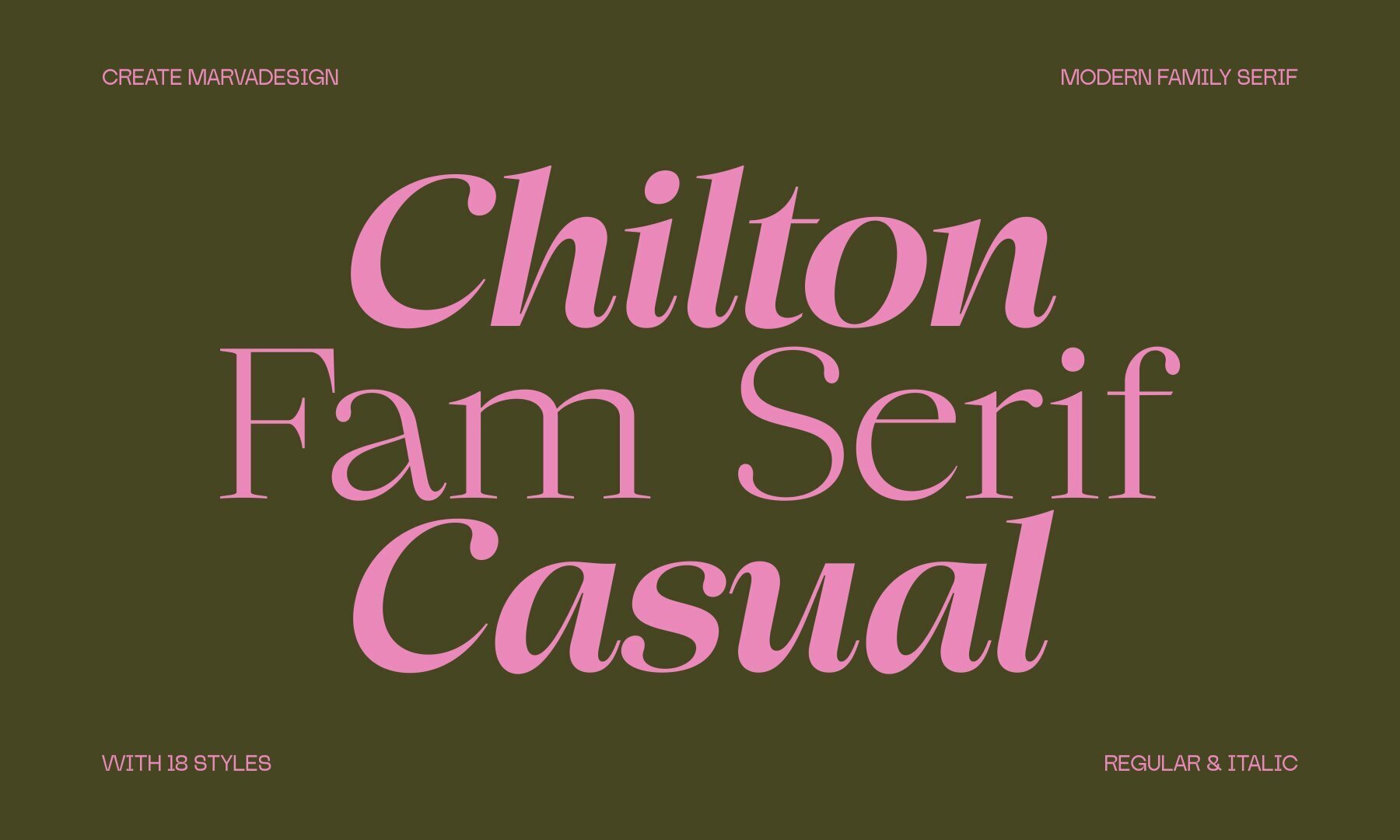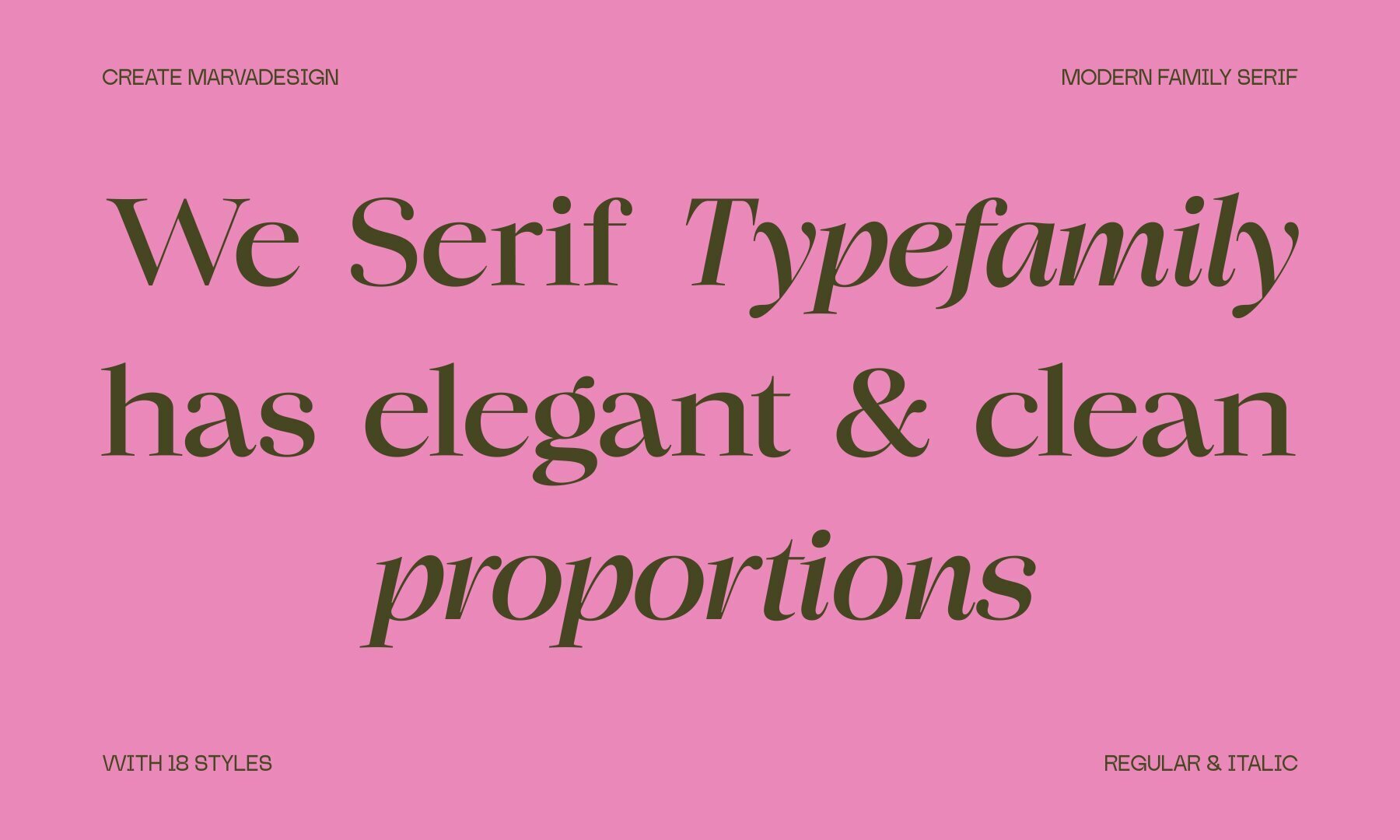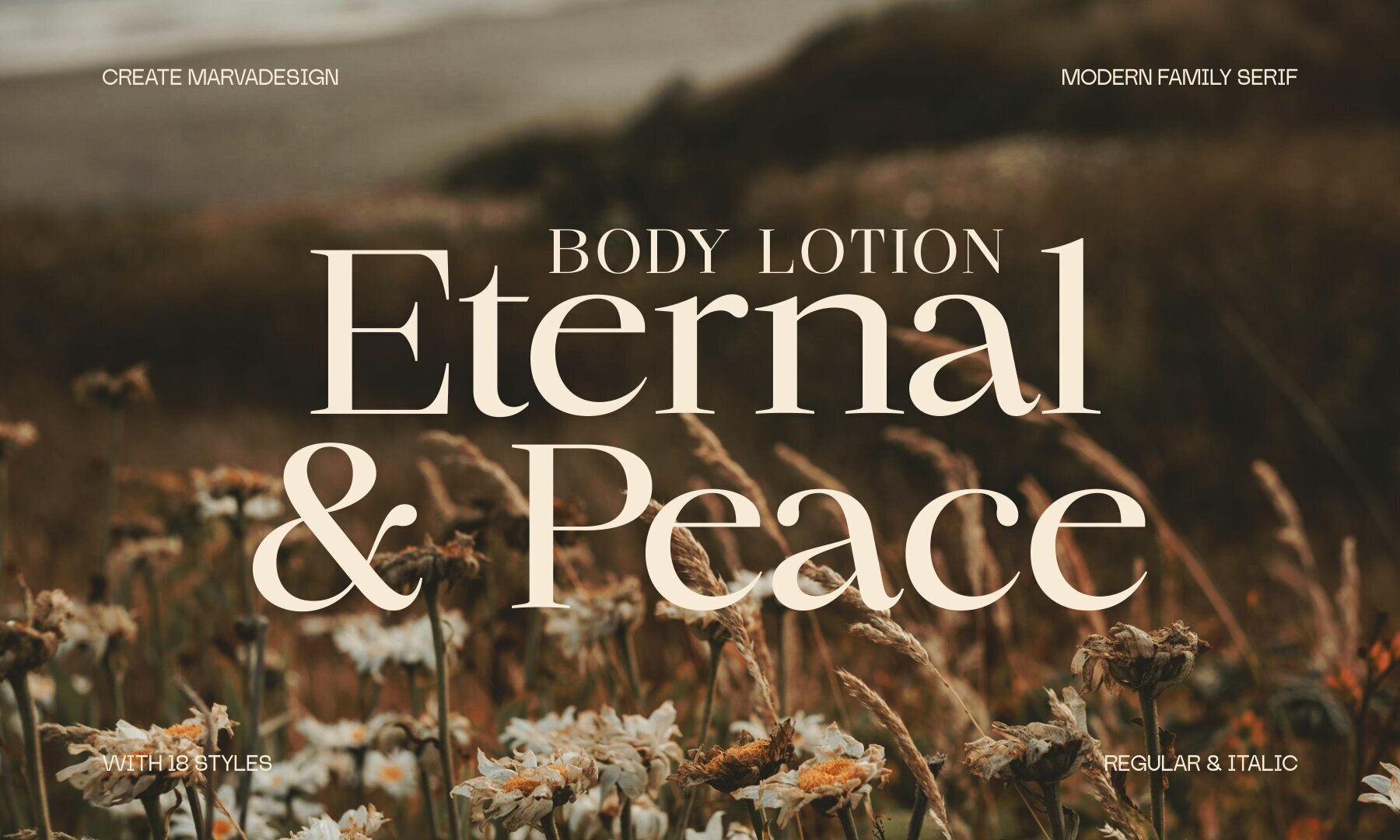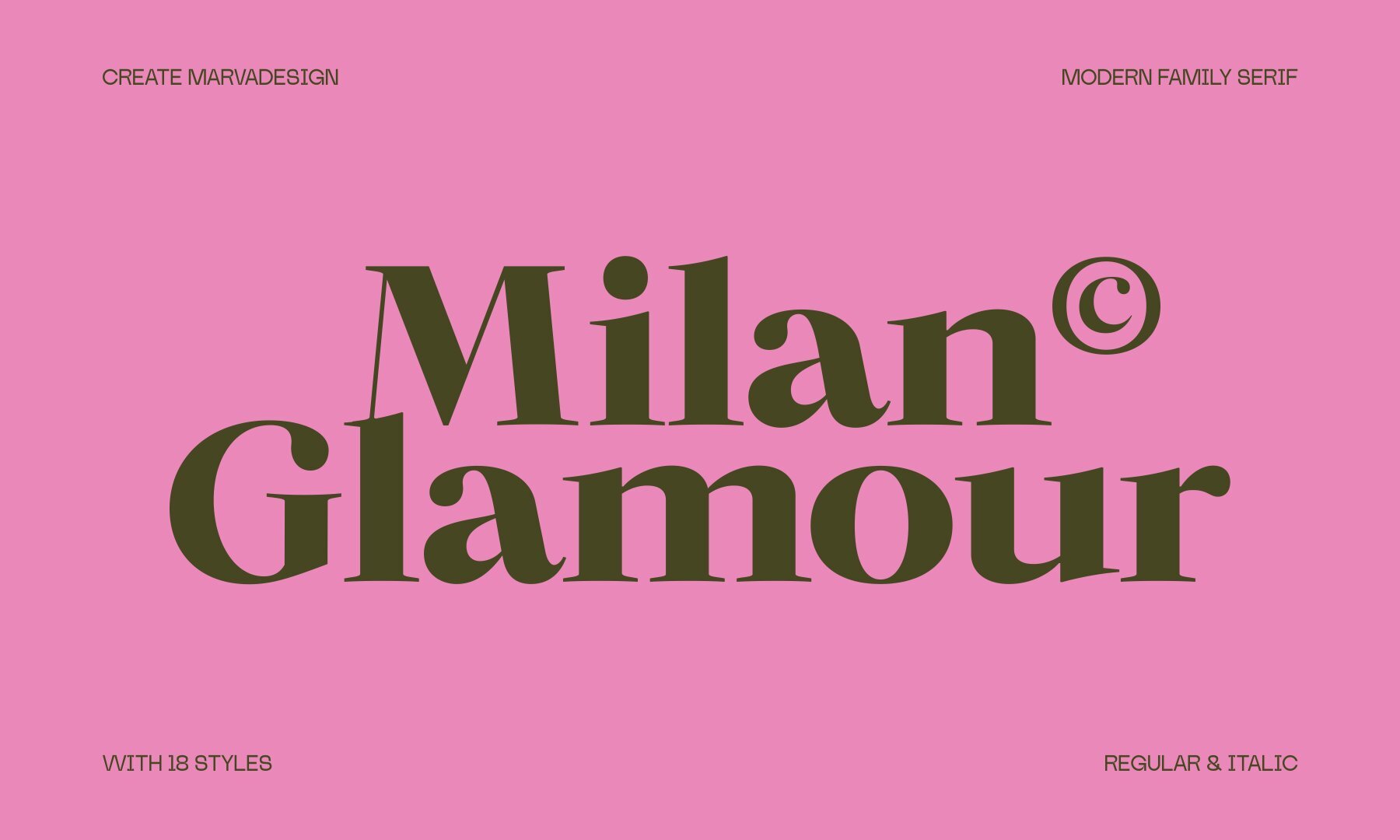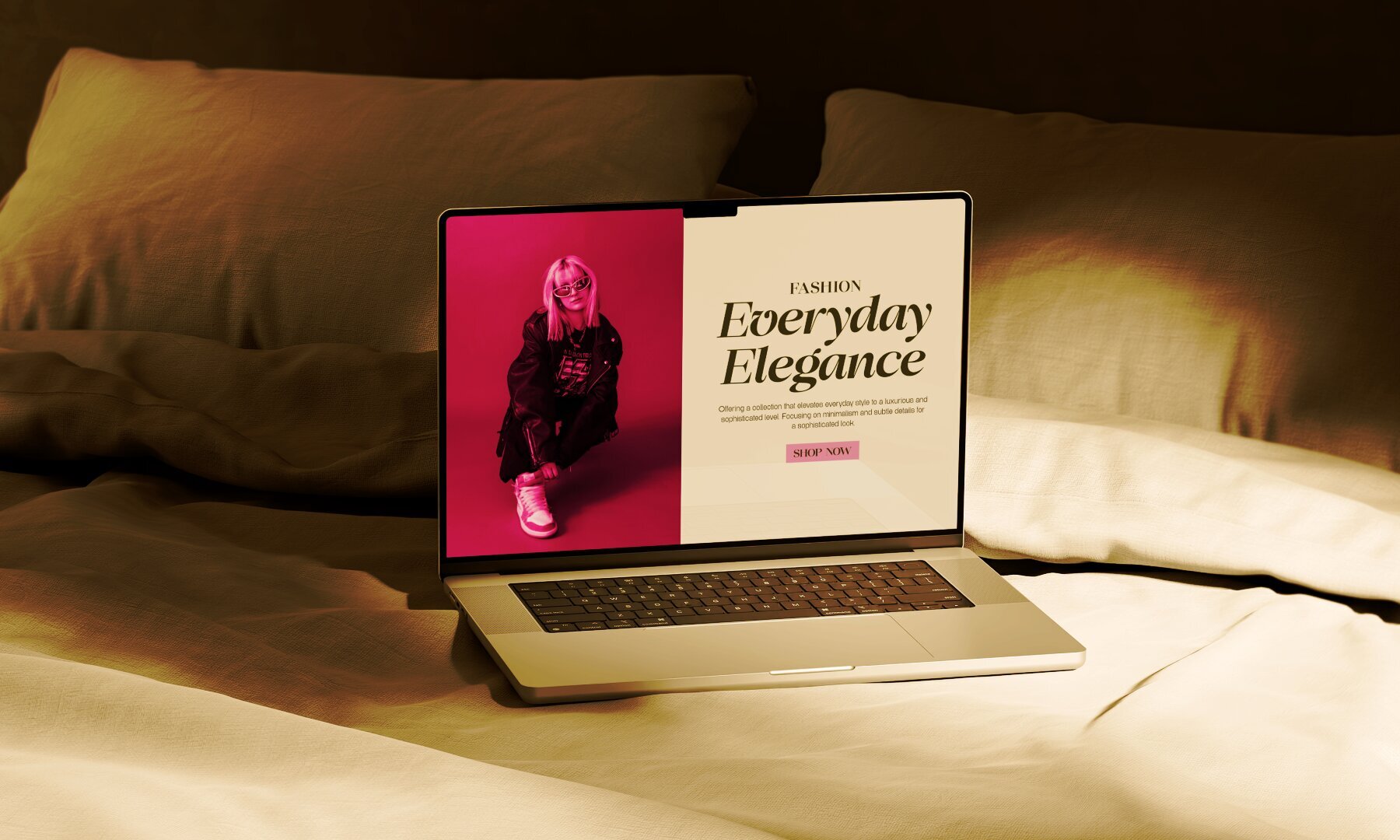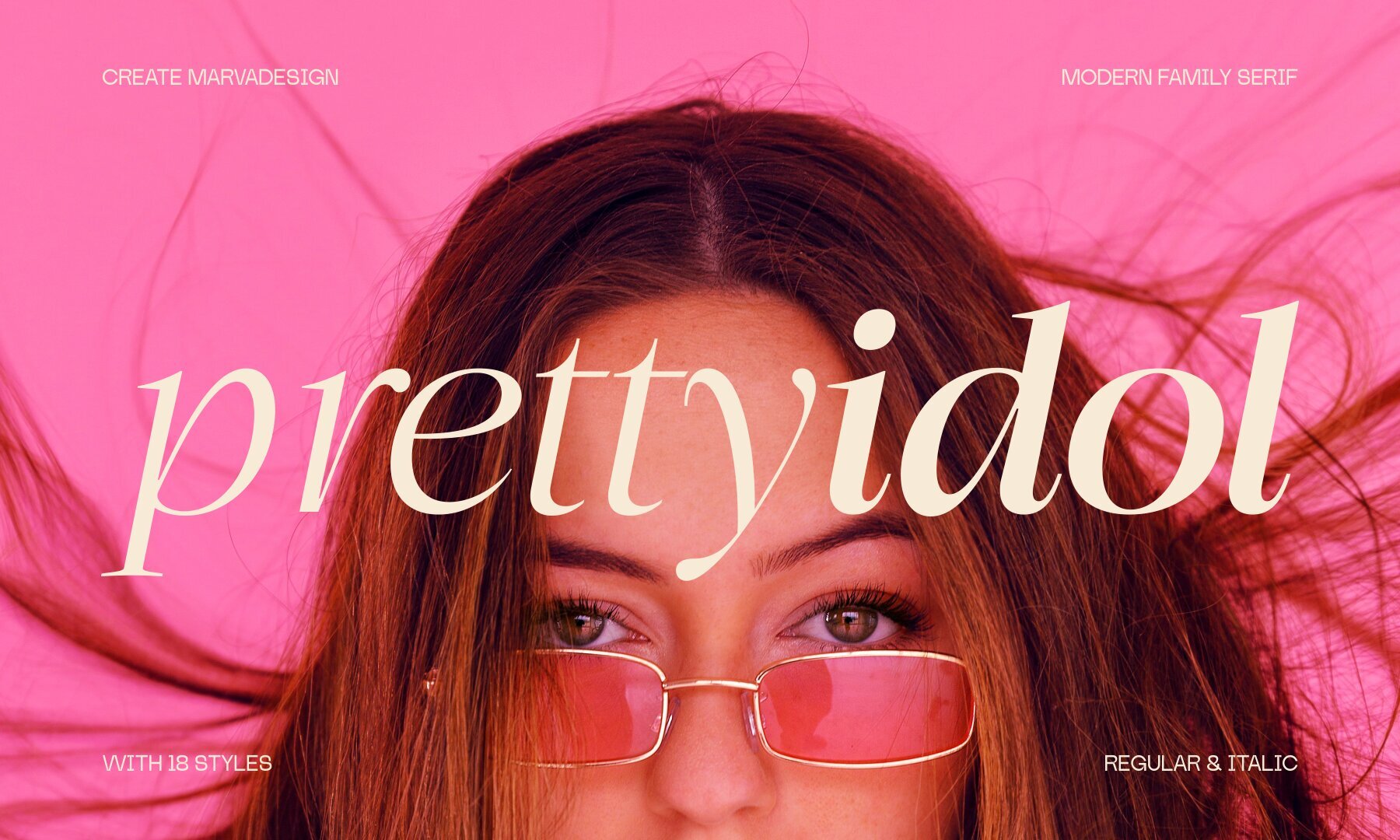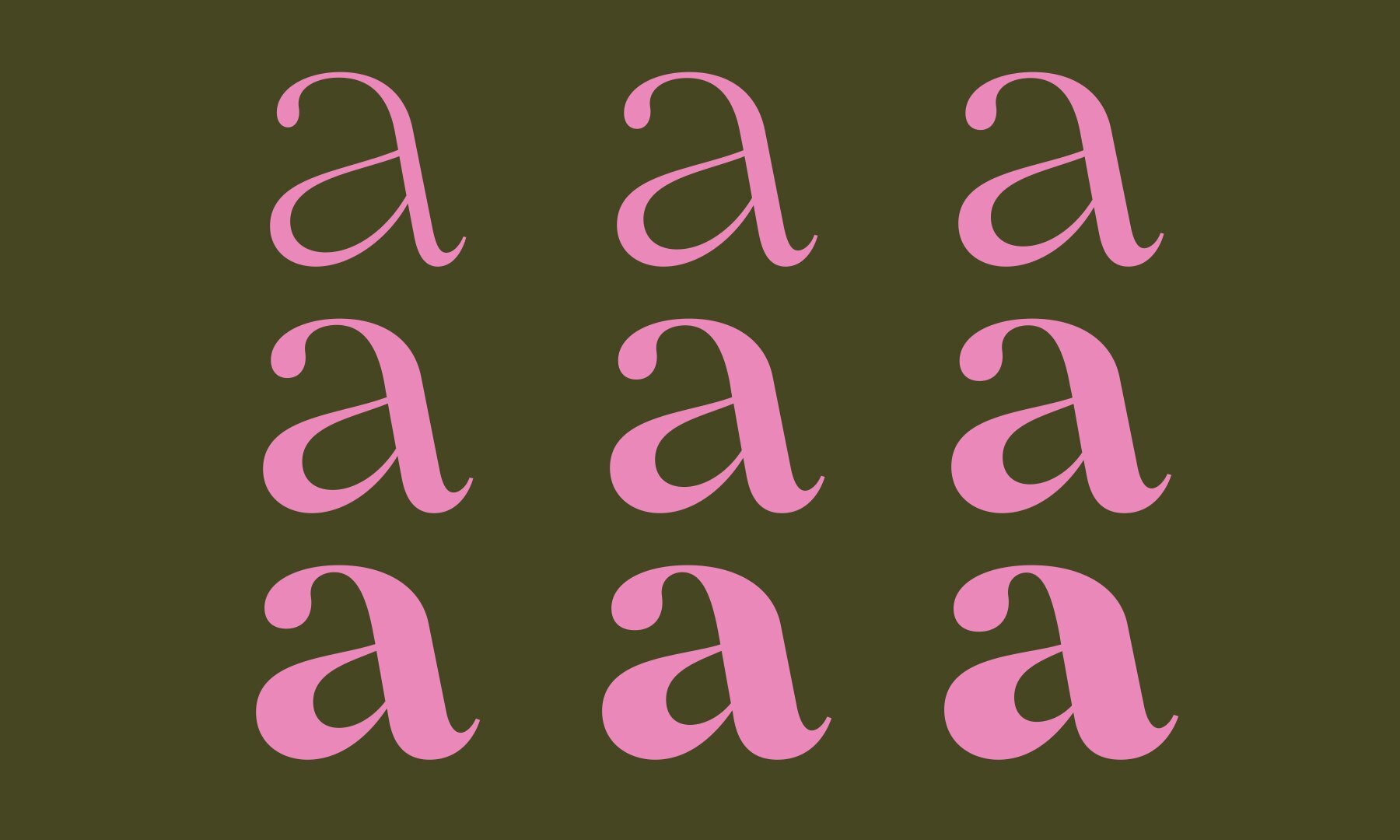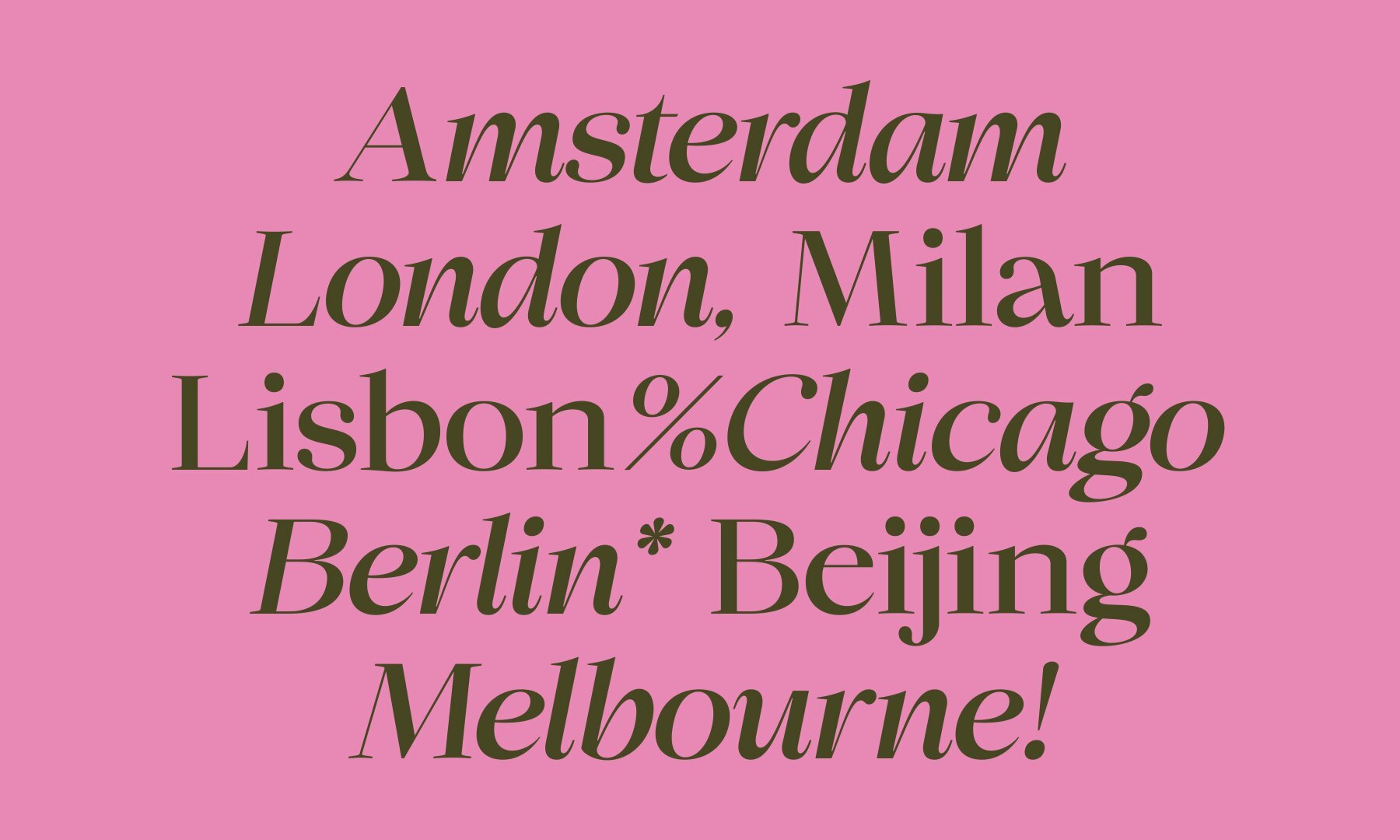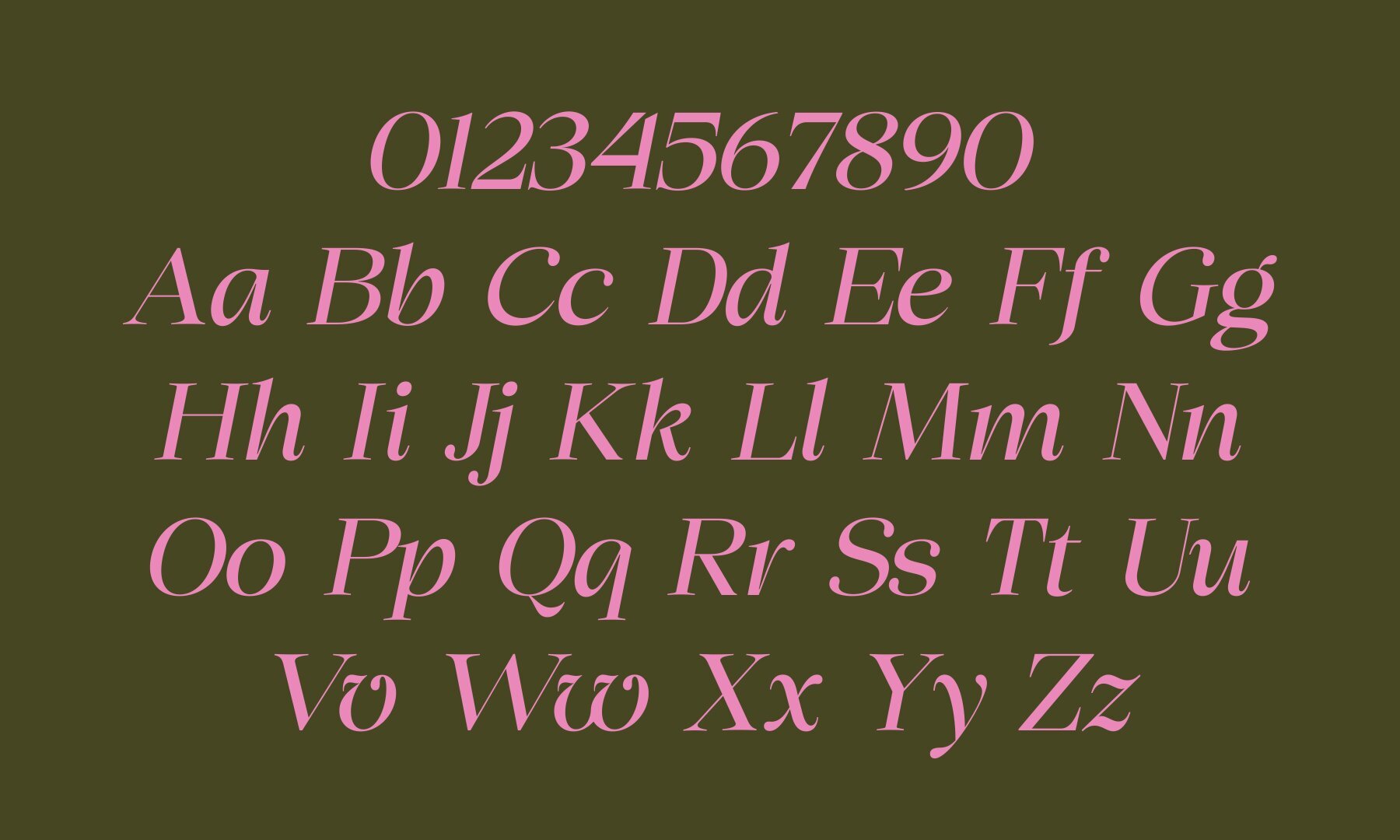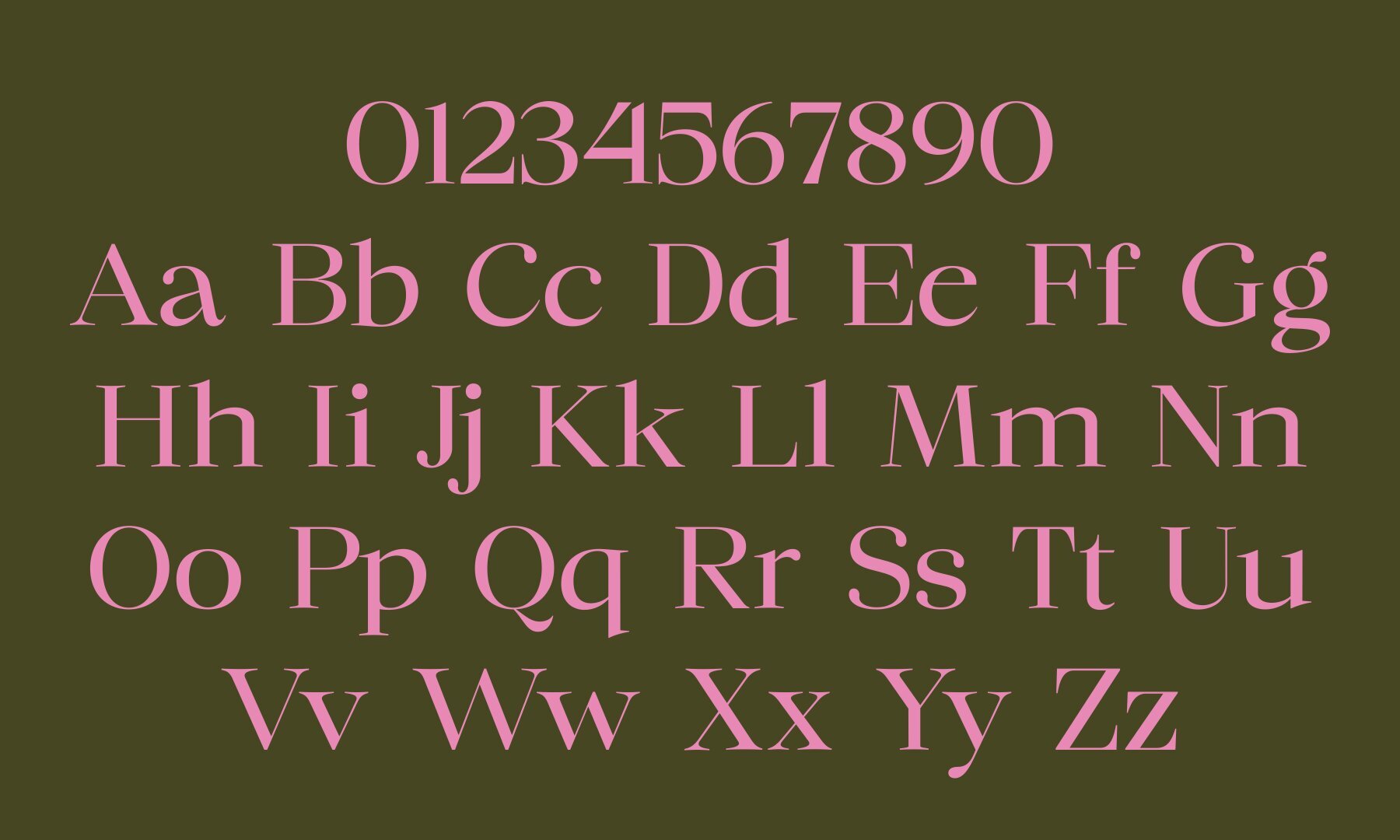
Chilton Font
The Chilton font family brings together elegance and casual flair, offering a modern serif that adapts seamlessly across various design contexts. Crafted with refined proportions and a subtle flow, Chilton embodies both confidence and warmth, making it equally suitable for the eloquence of editorial layouts and the distinctive flair of branding. The typeface comprises an impressive range of 18 styles, from Regular to Italic, ensuring versatility for diverse design applications. Its smooth curves, sharp serifs, and balanced contrast deliver a timeless yet contemporary aesthetic, a perfect choice for projects prioritizing both style and readability.Chilton: A Modern Serif With Endless Possibilities